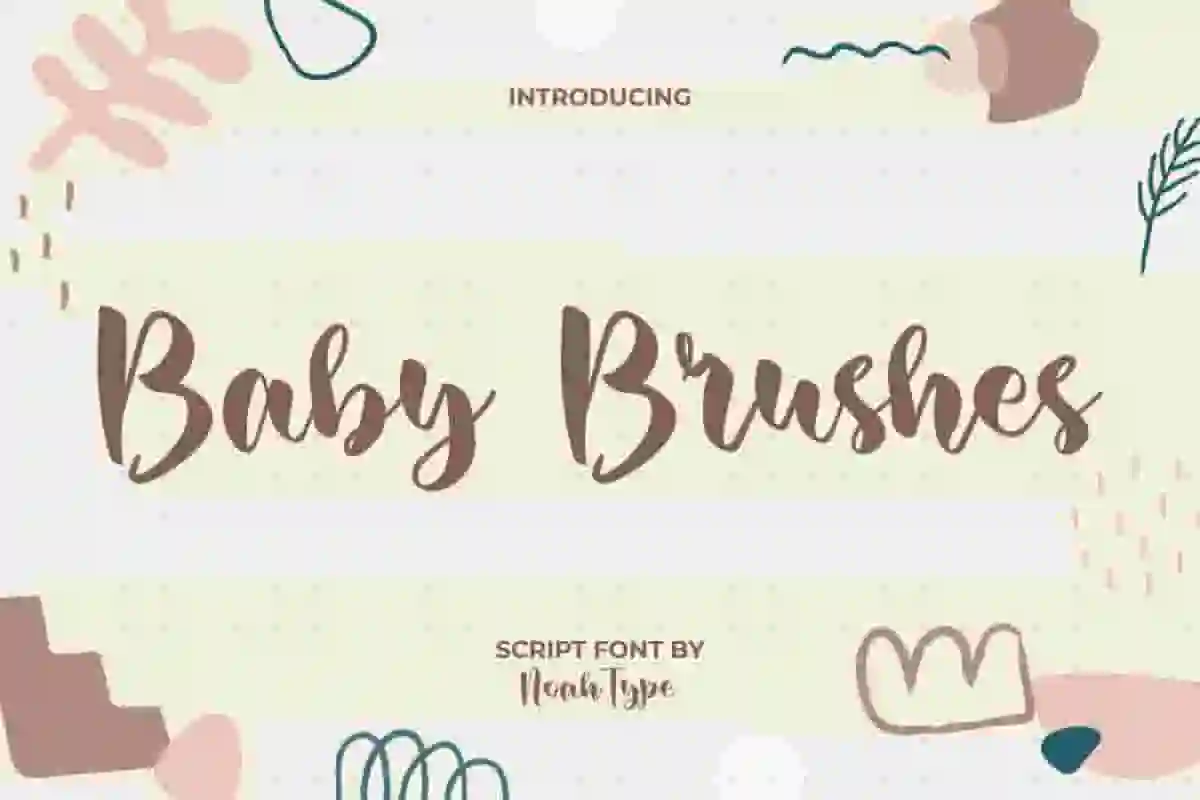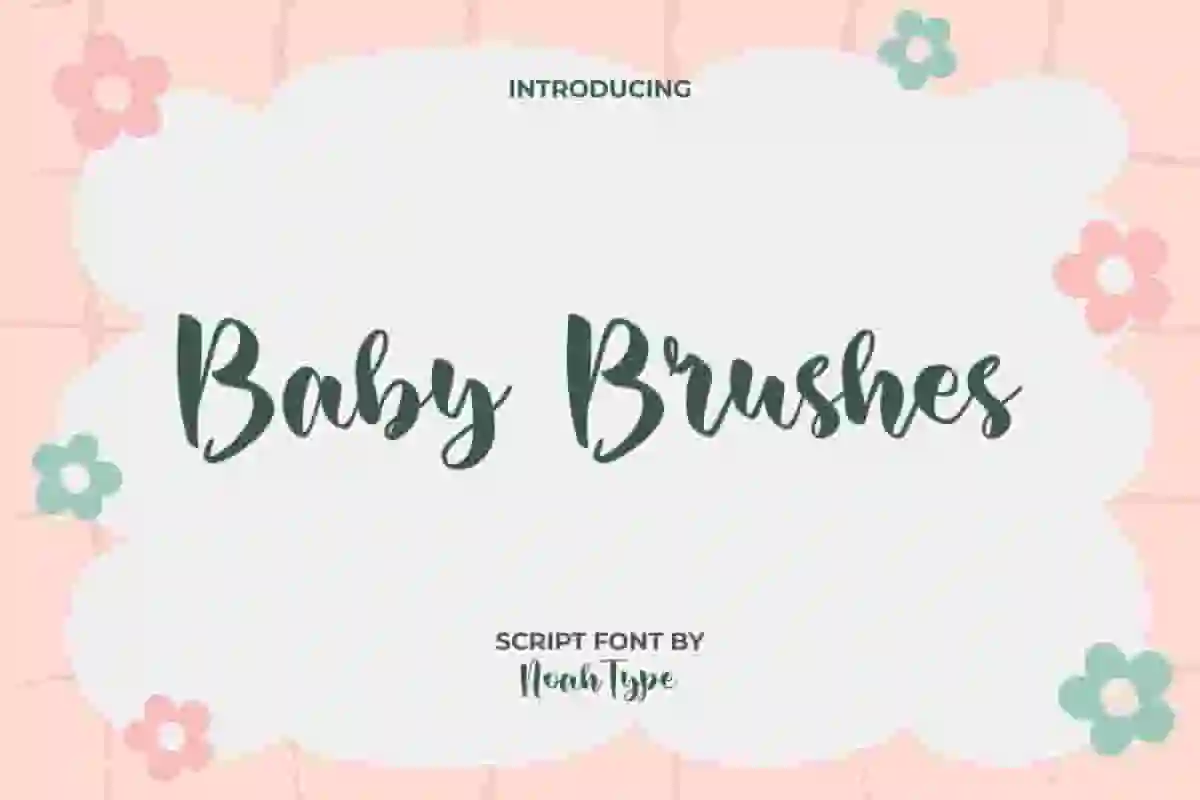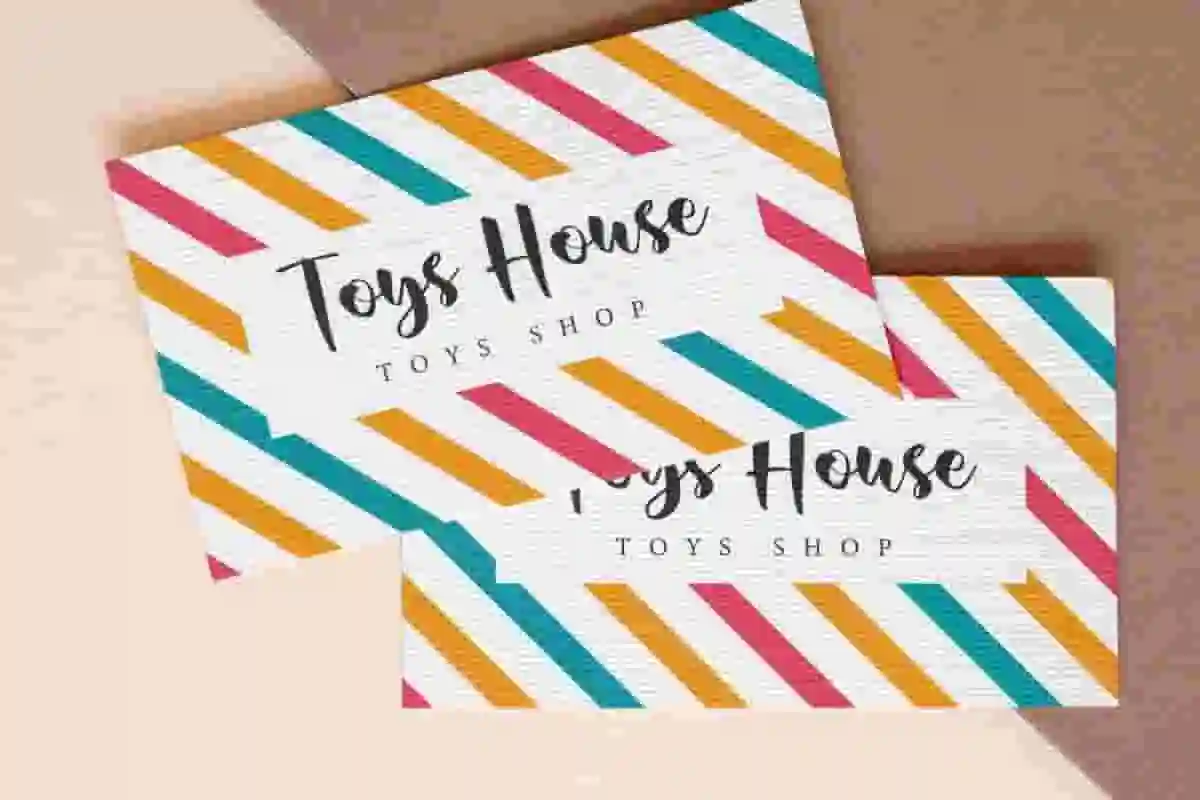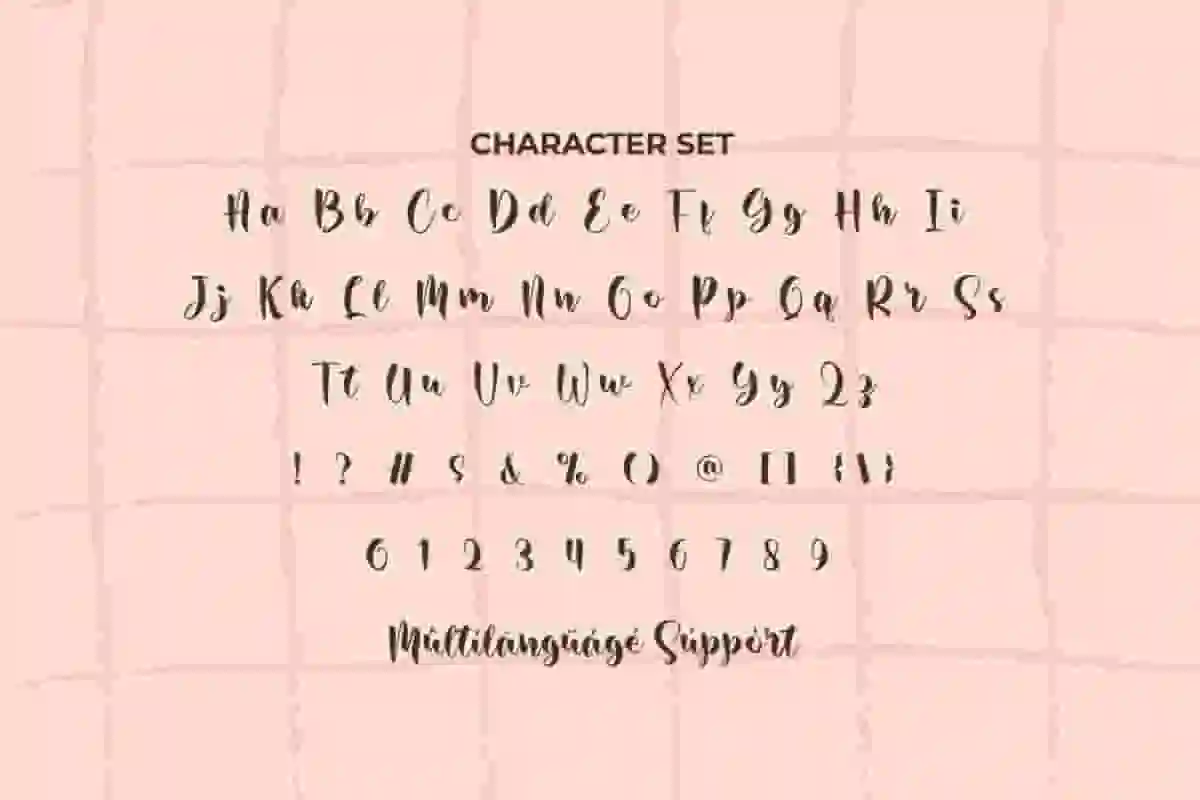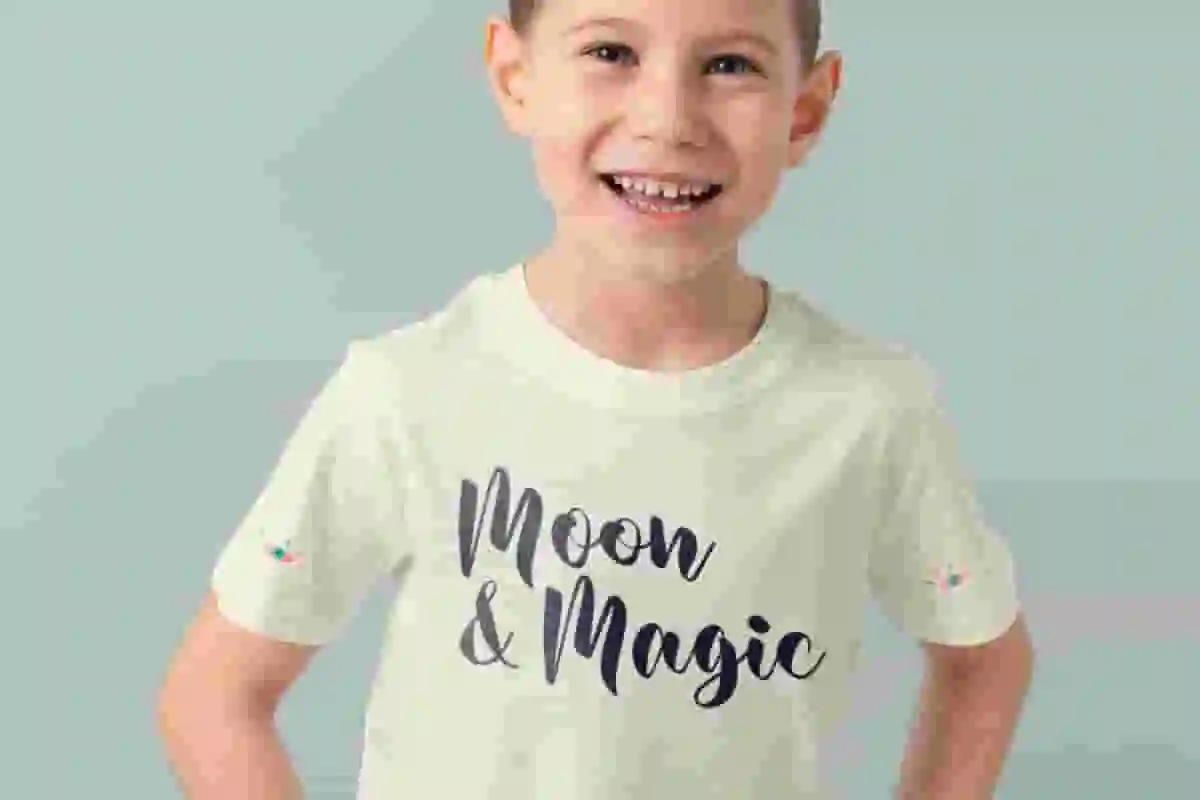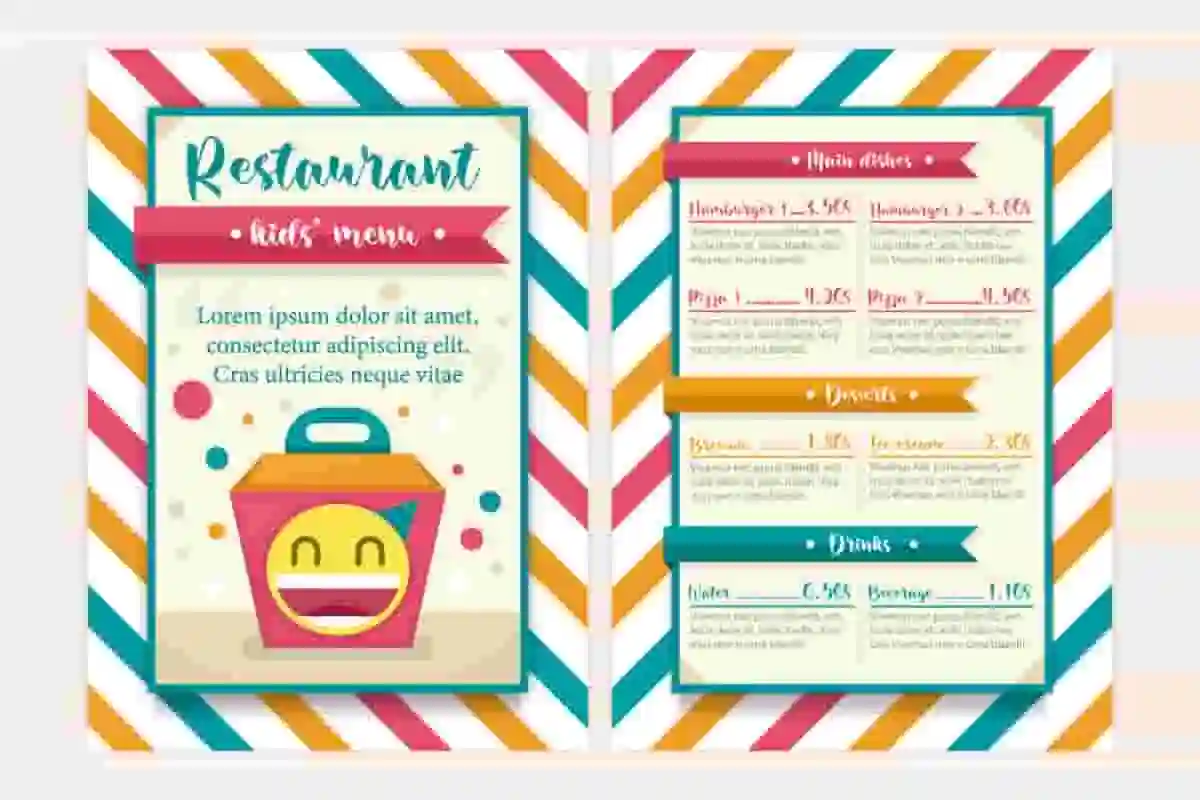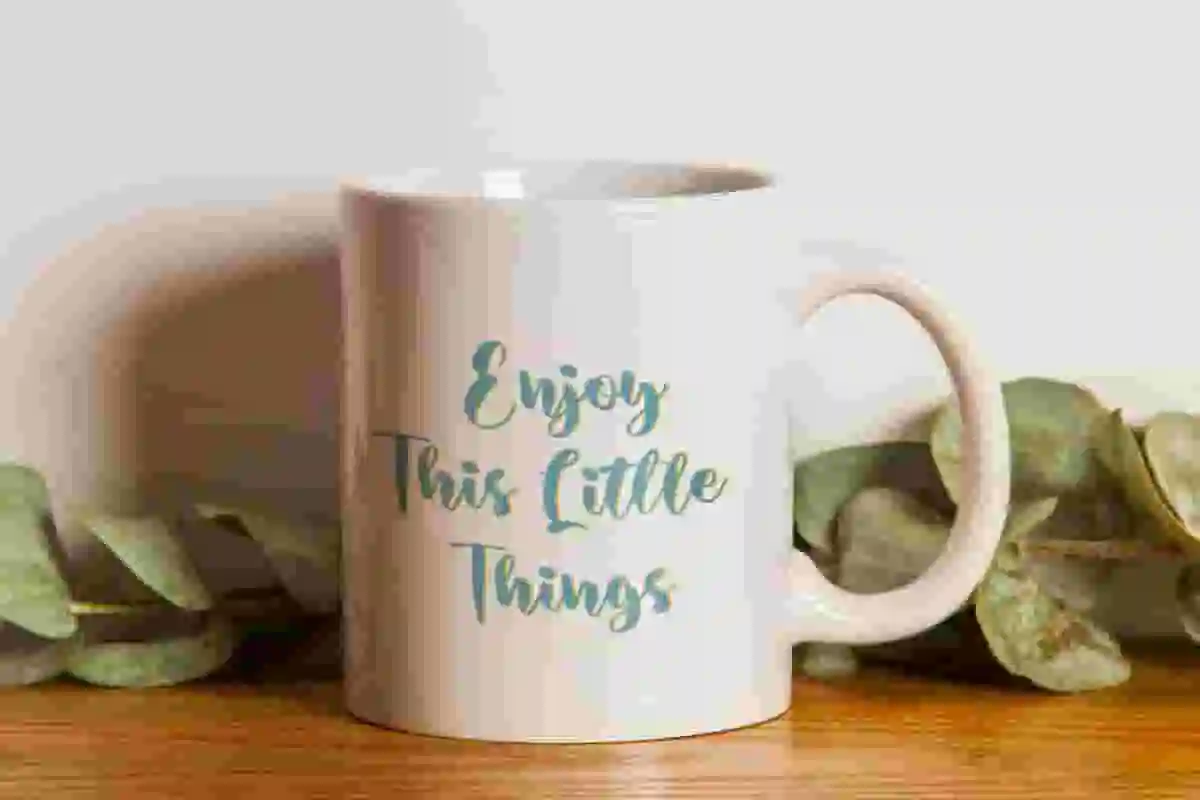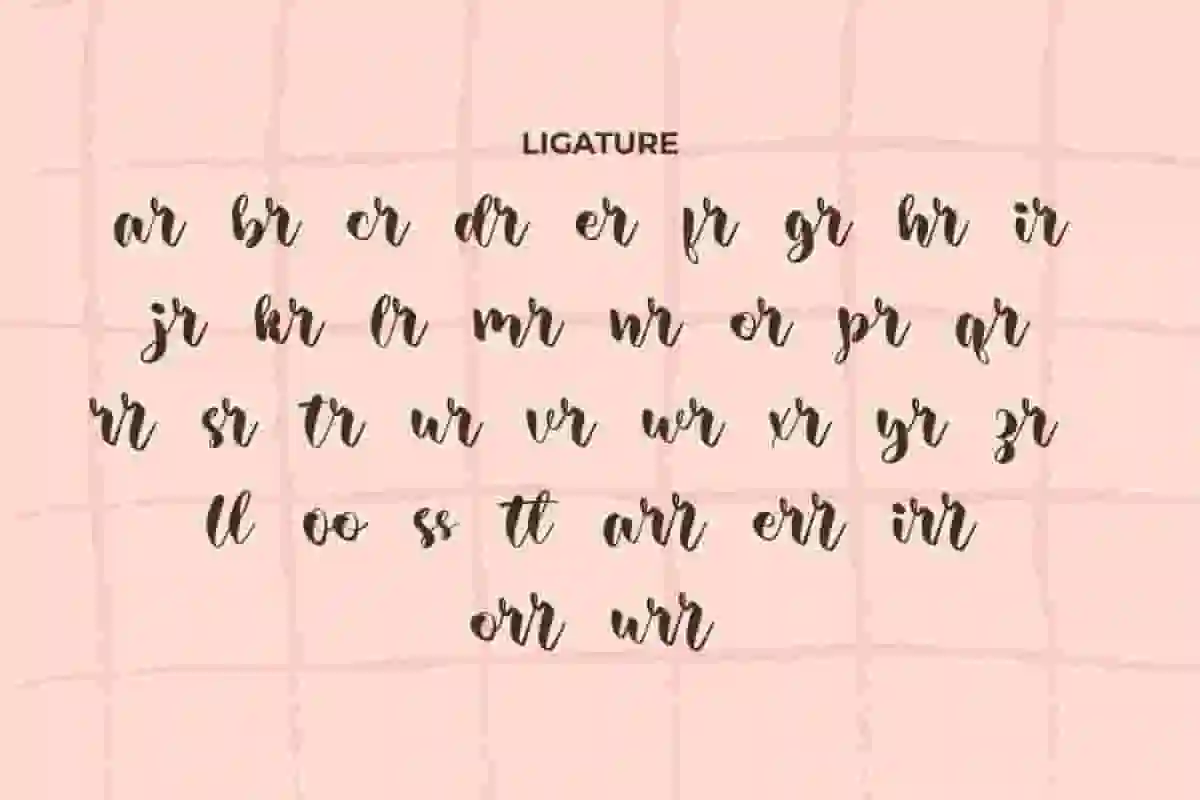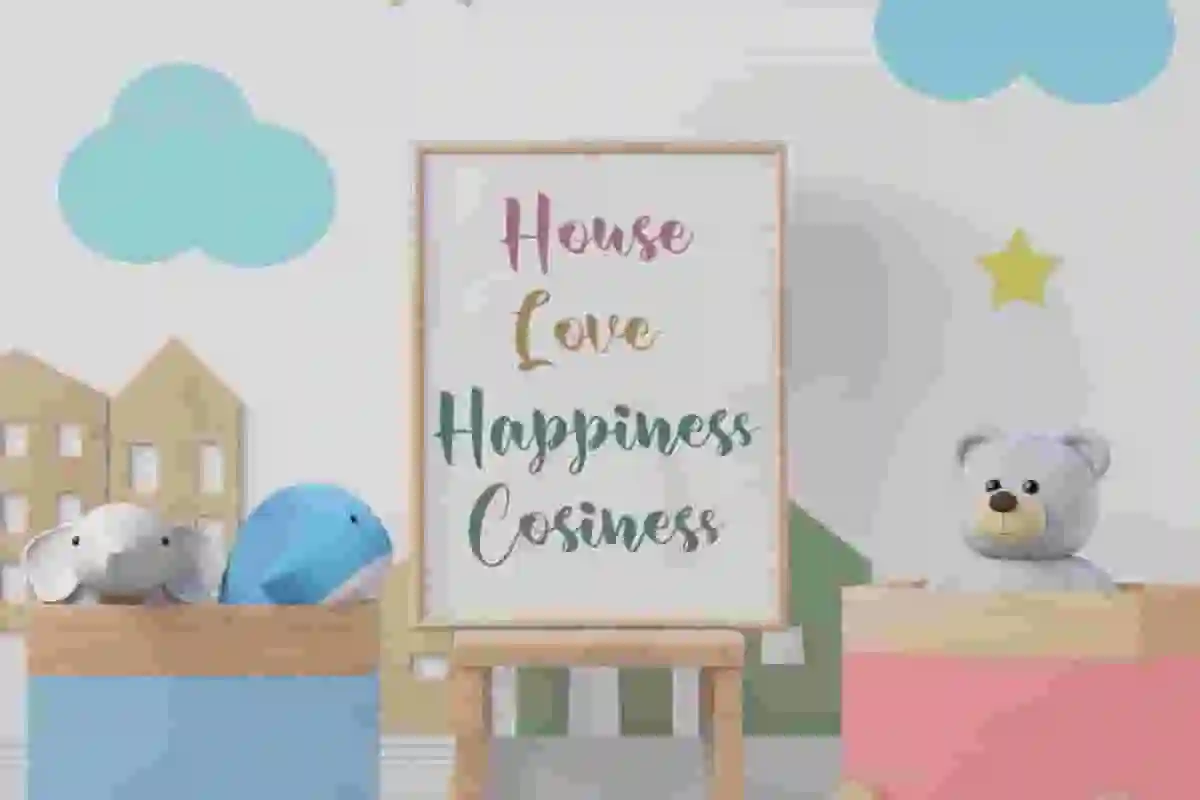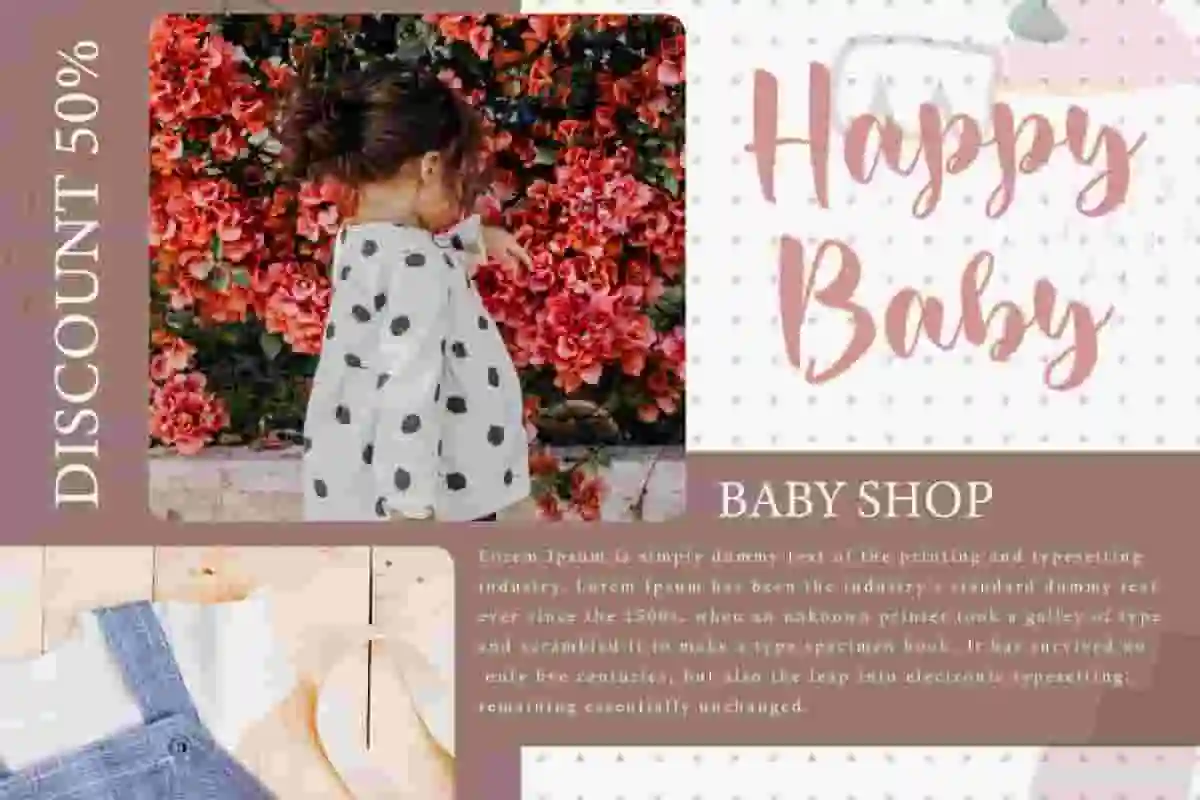
Baby Brushes Font is a cheerful calligraphy script font designed by NoahType. This font is made with a lot of heart so that it can show perfection in every design you make, such as business card, custom design, invitation, kids stuff, label, magazine catalog, menu, poster, product packaging, quote, website, and more!
Baby Brushes Font includes full set of Uppercase and Lowercase Basic Characters, Numerals, and Punctuation. It also contain ligature character that will add perfection and making it suitable for many industries, such as café, cosmetic, fashion, florist, photography, restaurant, toy, wedding or event organizer, etc.
Bring warmth, personality, and charm to your designs with Baby Brushes Script Font – a stunning brush-style script designed to make every project feel heartfelt and unique. Crafted with smooth, flowing strokes and natural curves, this font captures the authentic beauty of hand lettering, perfect for both casual and elegant designs.
Whether you’re working on branding, invitations, social media posts, product packaging, or greeting cards, Baby Brushes Script Font delivers a stylish yet approachable look. Its brush-textured details give every letter an organic and lively feel, making your text stand out while keeping it soft and friendly.